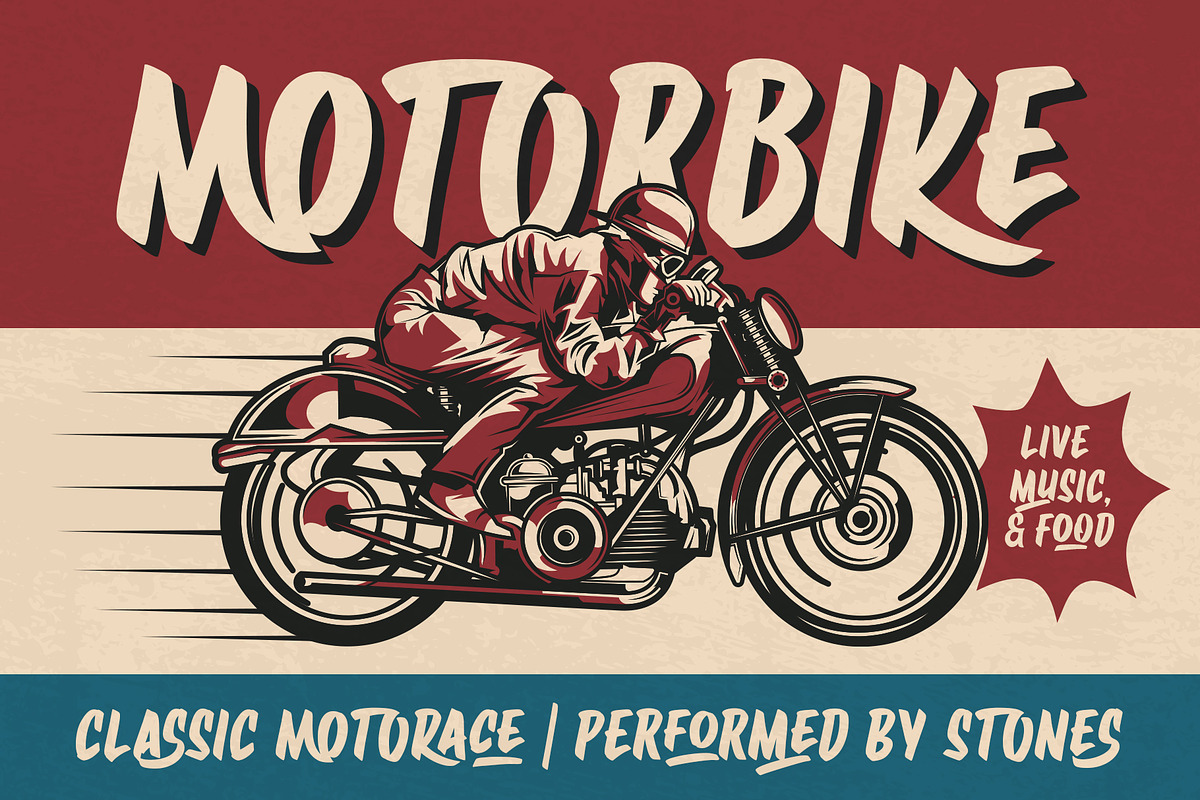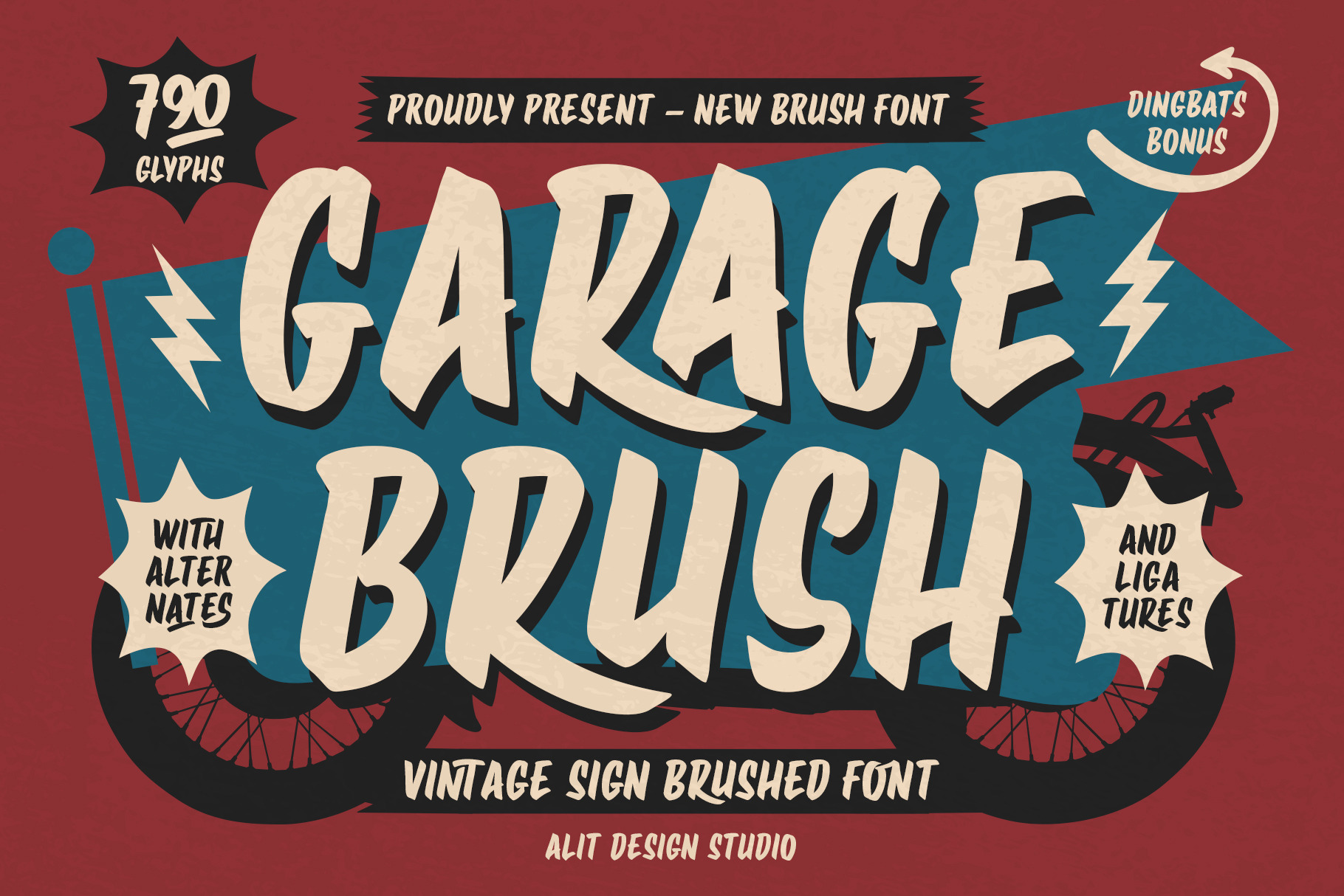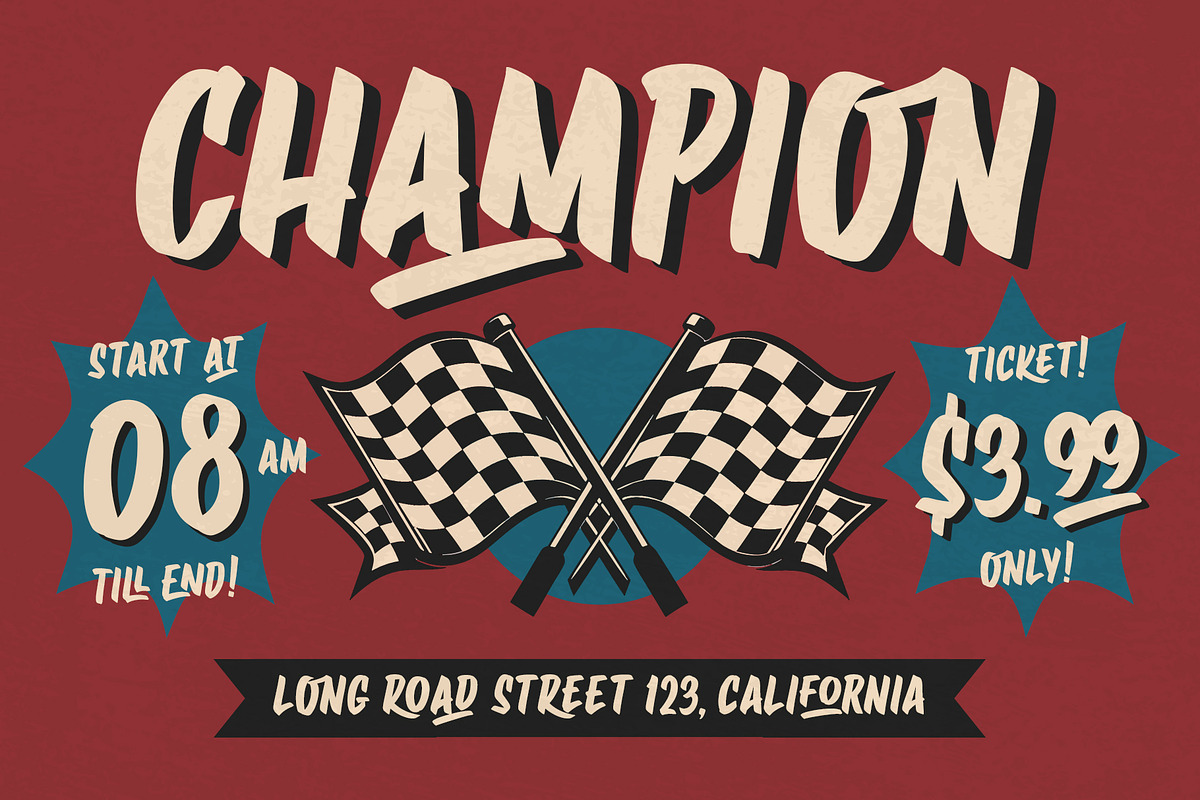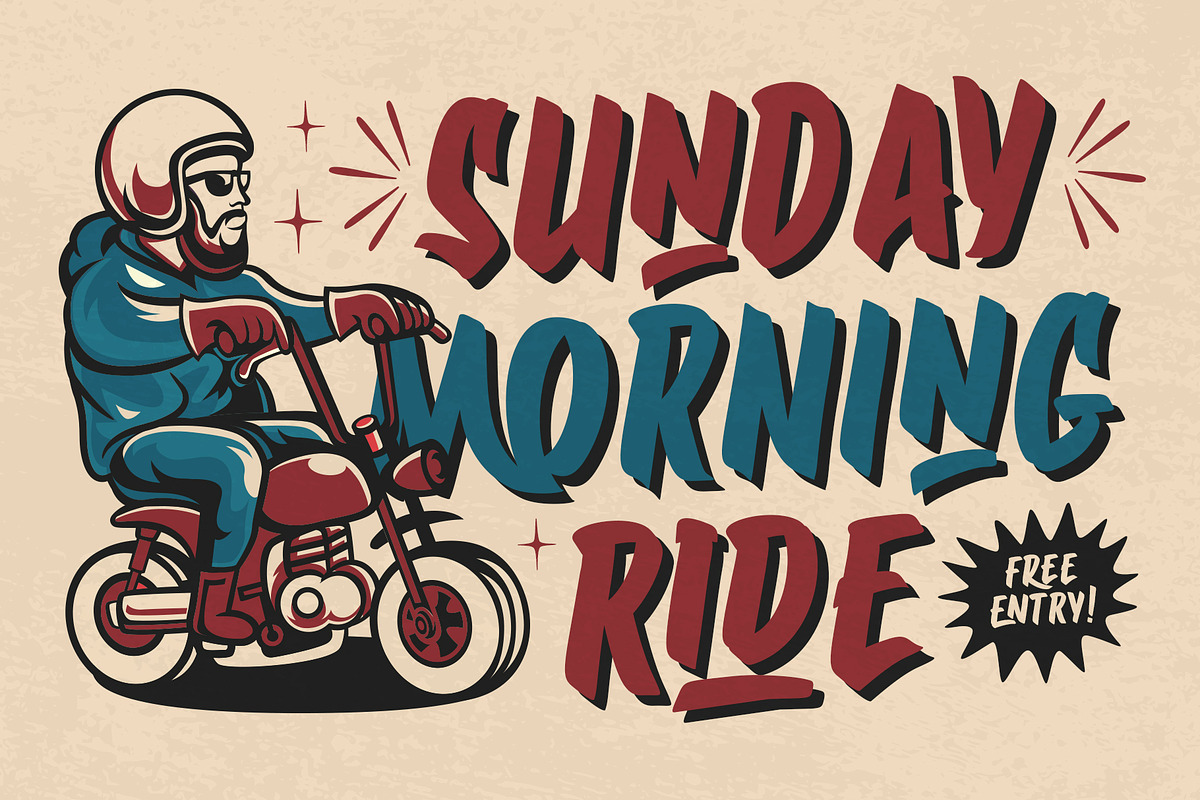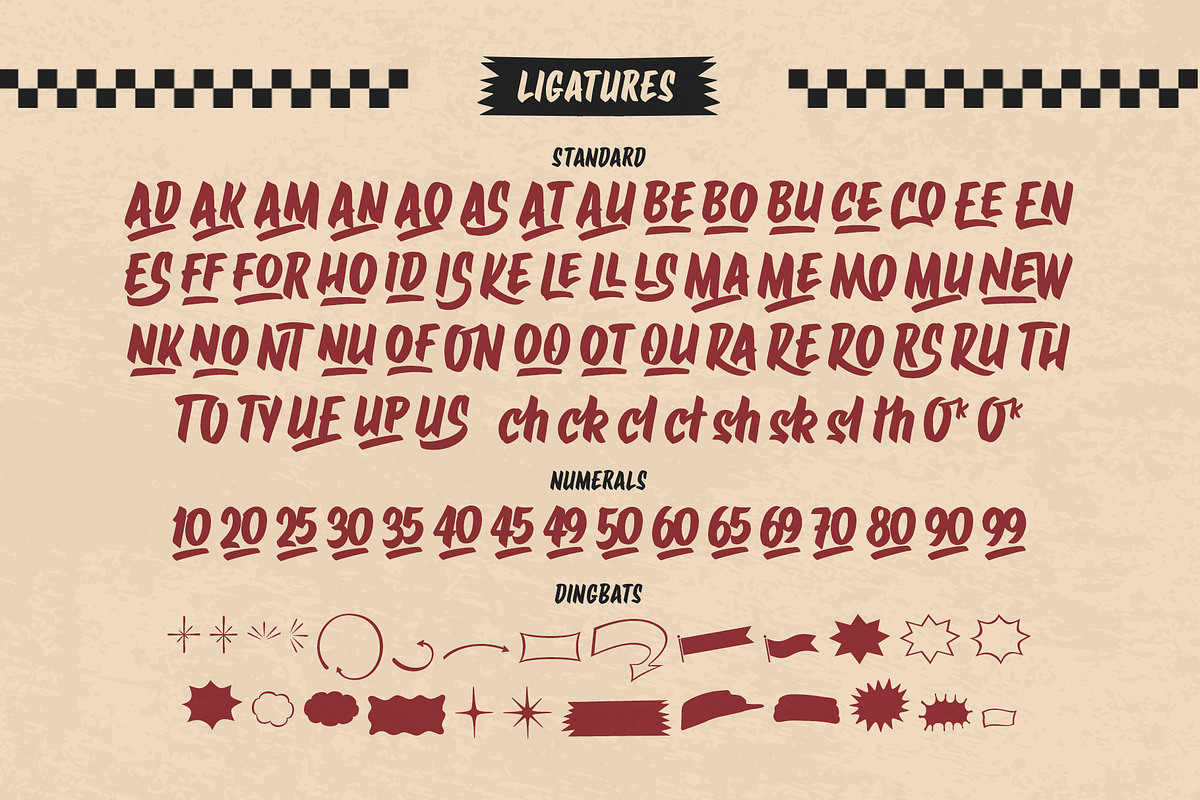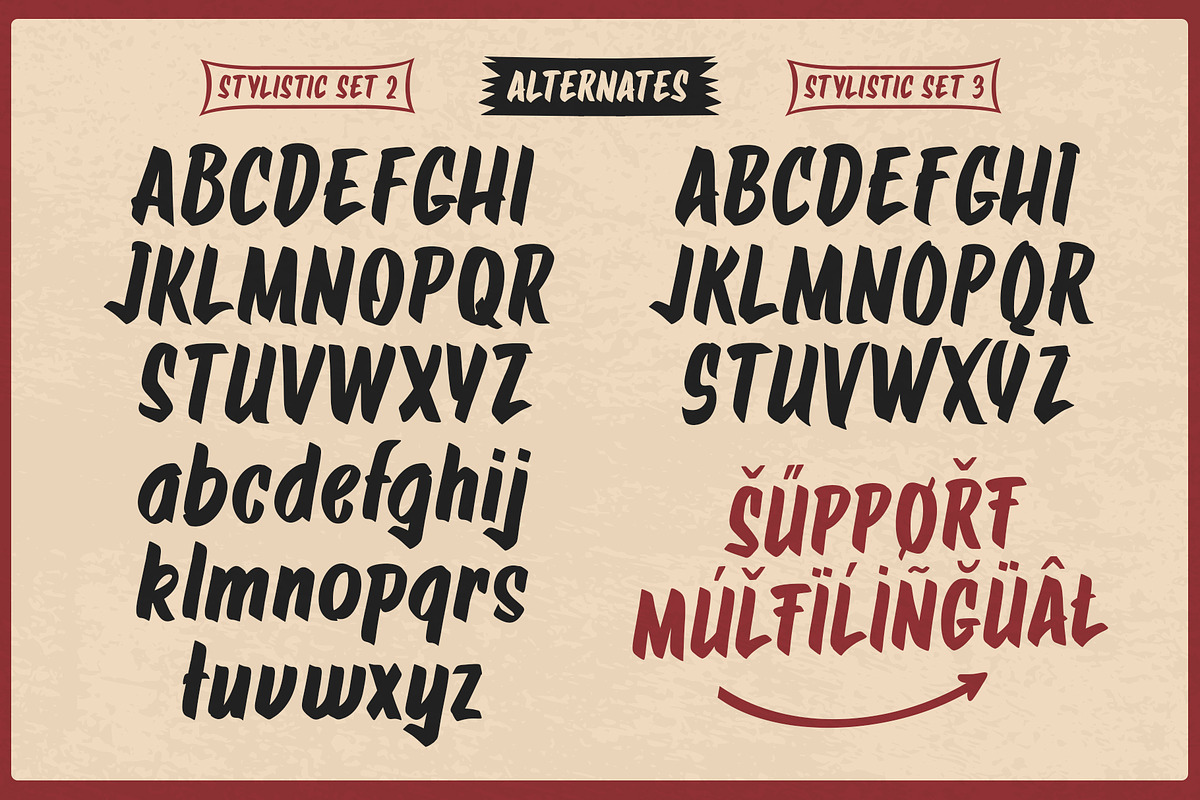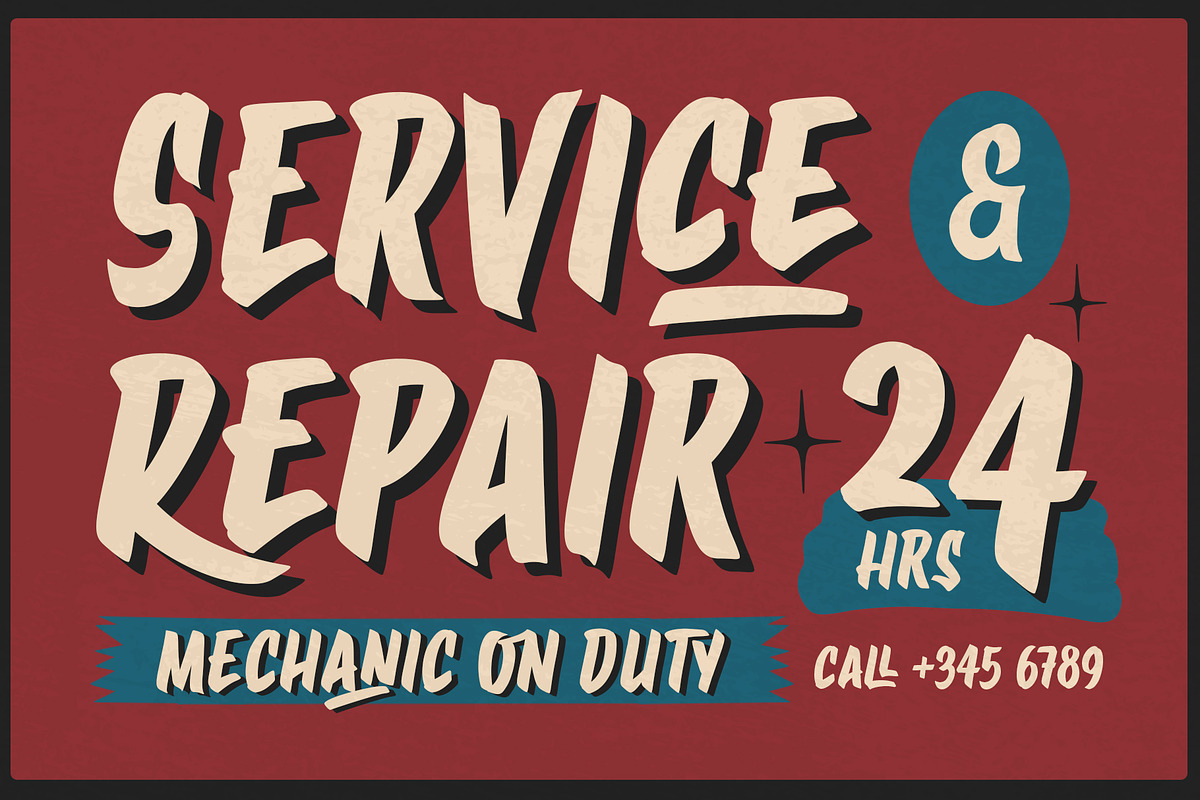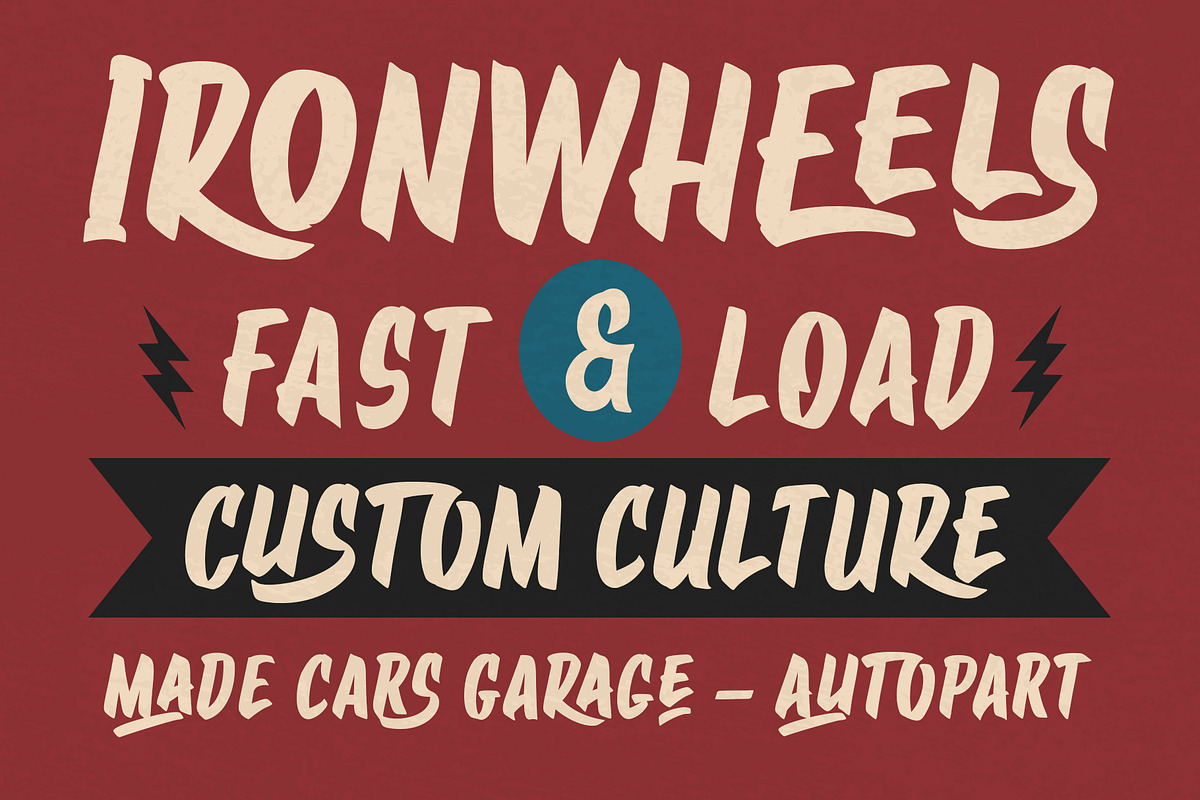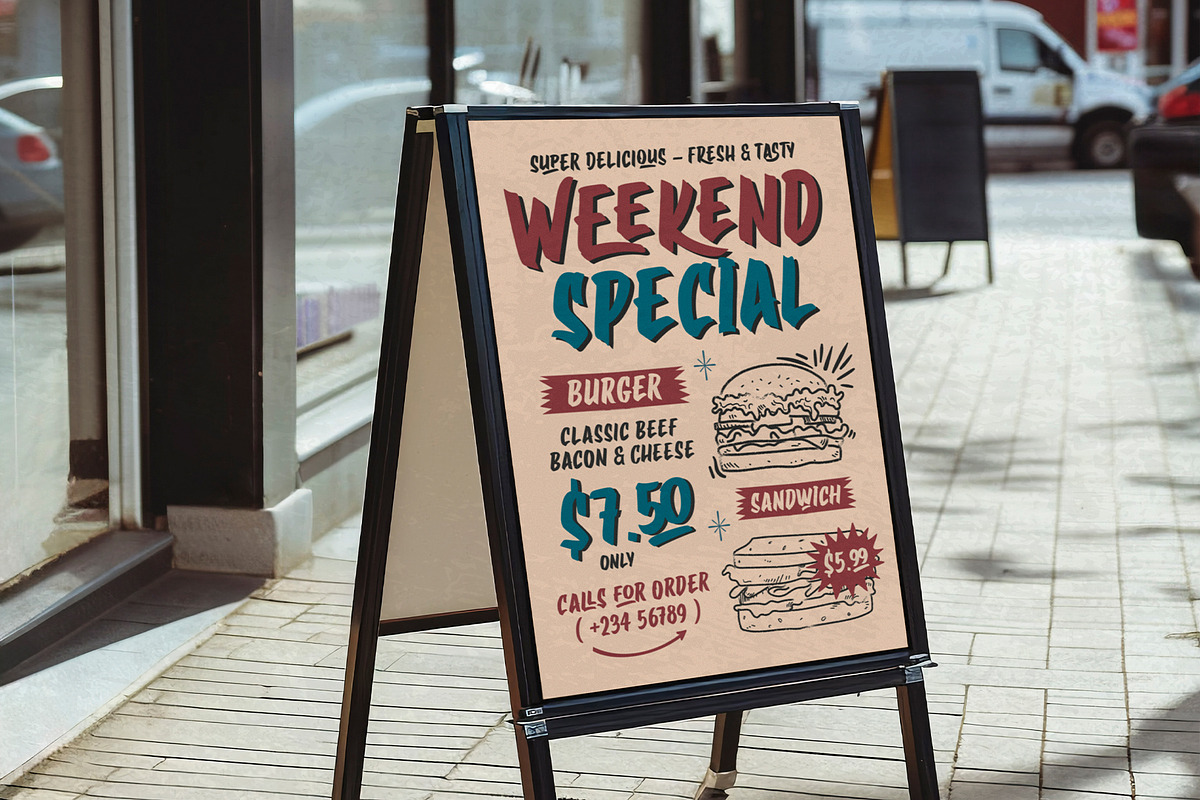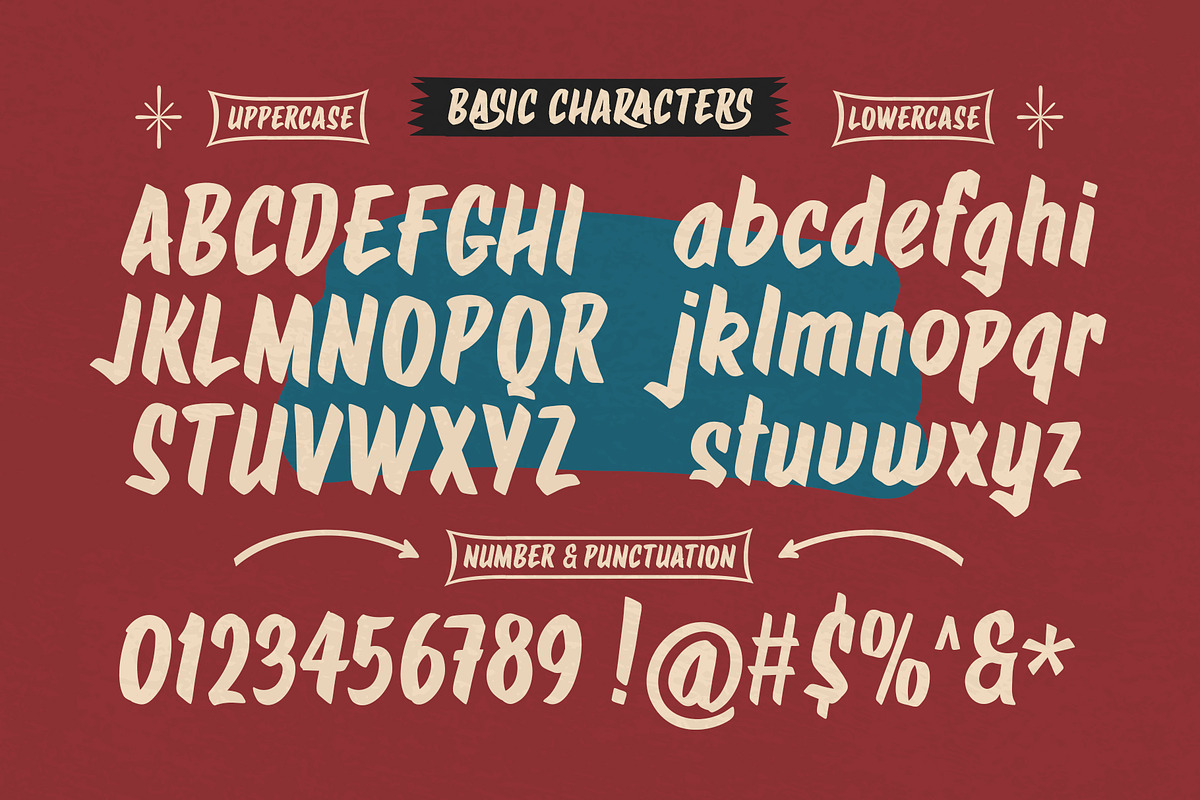
Garage Brush Font
Garage Brush Typeface is a vintage-inspired handwritten font that captures the smooth spontaneity of brush paint strokes. Perfect for adding a retro, artisanal feel to any design, this typeface is both bold and fluid, making it ideal for logos, posters, branding, and creative projects that need a touch of authenticity and flair.
- 790 characters for extensive typographic flexibility.
- A variety of alternative characters, allowing for endless customization to give your text a unique, hand-lettered look.
- Ligatures and swashes for seamless, decorative combinations that enhance the natural brush effect.
- Multilingual support, ensuring compatibility with a wide range of languages.
Whether you’re aiming for a vintage, rebellious, or handcrafted aesthetic, Garage Brush Typeface delivers with style and versatility. Let your designs come alive with the free-flowing spirit of brush-painted letters!